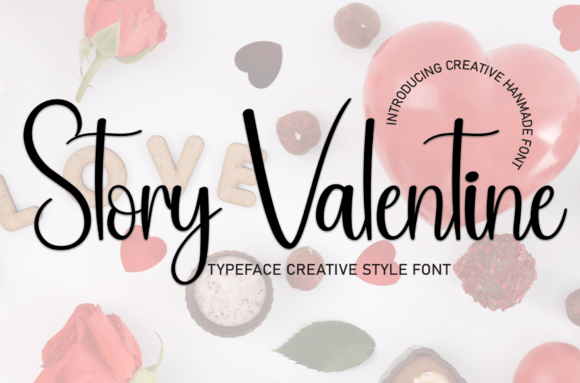
Embark on a typographic adventure with Story Valentine Font, a delightful script font family that epitomizes sweetness and friendliness. Created by the talented William Jhordey, Story Valentine is more than just a font; it's an expression of heartfelt emotion, a touch of whimsy, and an invitation to let your creativity flourish.
Immerse yourself in the charm of Story Valentine's handwritten style, meticulously crafted to evoke the warmth of a personal note. Its graceful curves and playful strokes lend an enchanting aura to any design, transforming ordinary words into captivating expressions of art. Whether you're a seasoned designer or a creative enthusiast, the Story Valentine Font family is your gateway to creating designs that resonate with charm, individuality, and timeless appeal.
Picture this: a wedding invitation adorned with Story Valentine's elegant script, the heartfelt words dancing across the page like a whispered promise of love. Or, envision a greeting card embellished with Story Valentine's playful strokes, conveying heartfelt sentiments with a touch of whimsy. The possibilities are endless, and the magic lies in your hands.
With Story Valentine, you'll discover a font family that goes beyond mere aesthetics. It's a tool that unlocks your creative potential, allowing you to weave tales of love, joy, and inspiration through the art of lettering. Join the countless designers and artists who have embraced the magic of Story Valentine, and let your designs blossom into enchanting masterpieces.